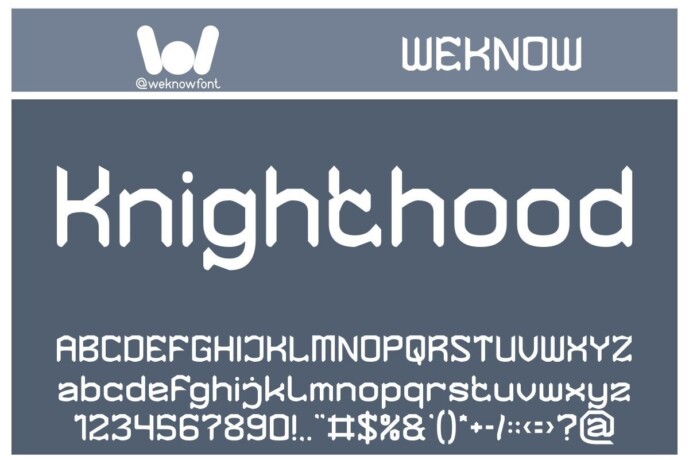
Knighthood Font
Designer: weknow
Immerse yourself in the realm of whimsy and fantasy with the Knighthood font. This modern Gothic marvel skillfully melds elements of the medieval and the futuristic with its monolinear construction. Stylized terminals add a unique flair, culminating in a stunningly angular and geometric visual experience. With its rich roots in historical fiction, Knighthood is the perfect font to add an air of grandeur to your creativity. It is a seamless fit for headlines, brand or corporate identities, enhancing the aesthetic of your apparel designs.
It spins an intriguing narrative in the world of music, movies, games, magazines, and books. For the lovers of graphic novels and cartoons, Knighthood breathes life into your story. It also effortlessly enhances the digital landscape, lending a touch of majesty to YouTube and Instagram media, compelling websites, and an array of design projects. Let the Knighthood font carry your creativity into a world where the ancient past meets the distant future.